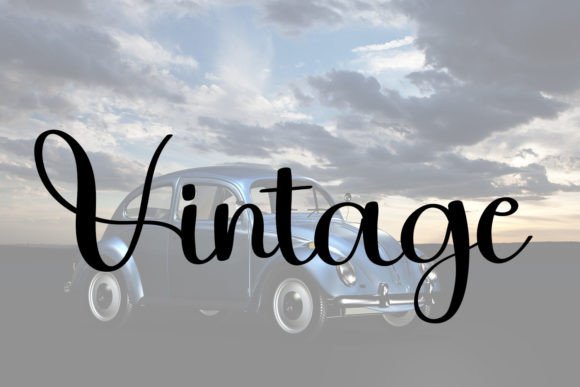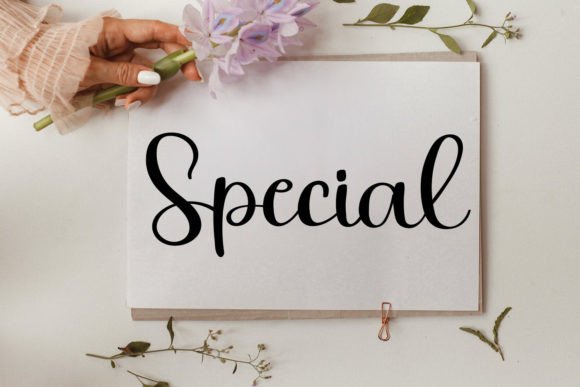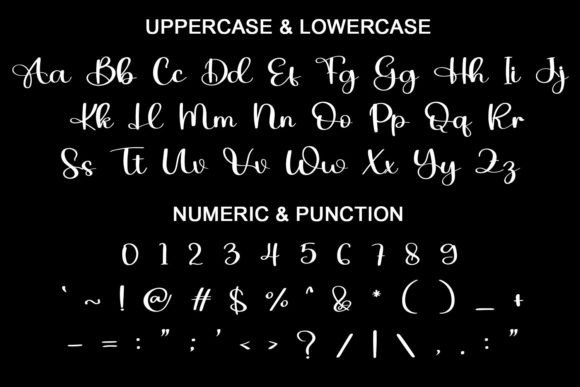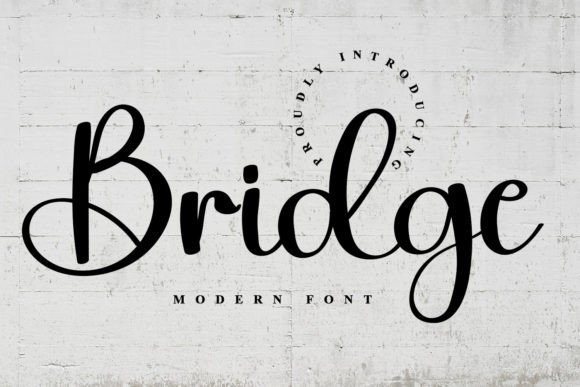
Discover the Elegance of Bridge Font: A Timeless Handwritten Script
Are you on the lookout for a font that can add a touch of elegance and sophistication to your designs? Look no further than the Bridge Font. This beautiful, flowing handwritten font is described by its elegant touch, making it perfect for your favorite projects. With its incredibly distinct and timeless style, Bridge Font is sure to capture your heart and inspire your creativity.
What is Bridge Font?
Bridge Font is a carefully crafted handwritten script that exudes elegance and refinement. Its flowing lines and curves create a sense of movement and fluidity, making it perfect for designs that require a touch of sophistication. Whether you’re working on a branding project, a wedding invitation, or a digital product, Bridge Font is sure to make a lasting impression.
Key Features of Bridge Font
- Elegant Touch: Bridge Font is characterized by its elegant touch, which sets it apart from other handwritten fonts. Its refined lines and curves create a sense of luxury and sophistication.
- Flowing Script: The font features a flowing script that is perfect for creating beautiful, eye-catching designs. Its fluid lines and curves make it easy to read and visually appealing.
- Timeless Style: Bridge Font has a timeless style that will never go out of fashion. Its classic design makes it perfect for a wide range of projects, from traditional to modern.
- Distinctive: The font’s distinctive style makes it stand out from other fonts. Its unique lines and curves create a sense of personality and character.
Why Choose Bridge Font?
There are many reasons why Bridge Font is the perfect choice for your design projects. Here are a few:
- Versatility: Bridge Font is incredibly versatile and can be used for a wide range of projects, from branding and advertising to packaging and digital products.
- High-Quality: Bridge Font is a high-quality font that is designed to deliver exceptional results. Its clear lines and curves make it perfect for both print and digital projects.
- Unique Style: The font’s unique style makes it perfect for designers who want to create distinctive and eye-catching designs.
How to Use Bridge Font?
Using Bridge Font is easy. Here are a few tips to get you started:
- Pair it with Other Fonts: Bridge Font pairs well with other fonts, making it perfect for creating unique and eye-catching designs.
- Experiment with Colors: The font looks great in a variety of colors, so don’t be afraid to experiment and find the perfect color for your design.
- Use it for Headings: Bridge Font is perfect for headings and titles, making it a great choice for designers who want to create eye-catching designs.
- Try it on Different Backgrounds: The font looks great on a variety of backgrounds, so try it out and see what works best for your design.
Who is Bridge Font for?
Bridge Font is perfect for designers, crafters, and anyone who wants to create beautiful and eye-catching designs. Here are a few examples of who can benefit from using Bridge Font:
- Graphic Designers: Bridge Font is perfect for graphic designers who want to create unique and eye-catching designs for their clients.
- Crafters: The font is great for crafters who want to create beautiful and personalized designs for their handmade products.
- Small Business Owners: Bridge Font is perfect for small business owners who want to create professional and eye-catching designs for their branding and marketing materials.
- Digital Product Creators: The font is great for digital product creators who want to create beautiful and visually appealing designs for their products.
In conclusion, Bridge Font is a beautiful and elegant handwritten font that is perfect for designers, crafters, and anyone who wants to create eye-catching designs. Its timeless style, flowing script, and distinctive lines and curves make it a great choice for a wide range of projects. With its ease of use, versatility, and high-quality design, Bridge Font is sure to become a favorite among designers and crafters.